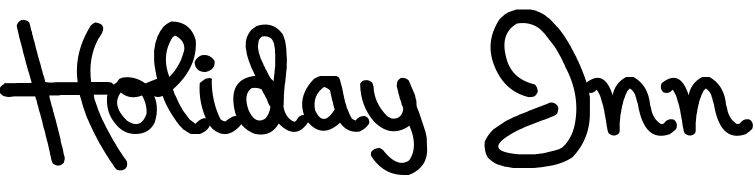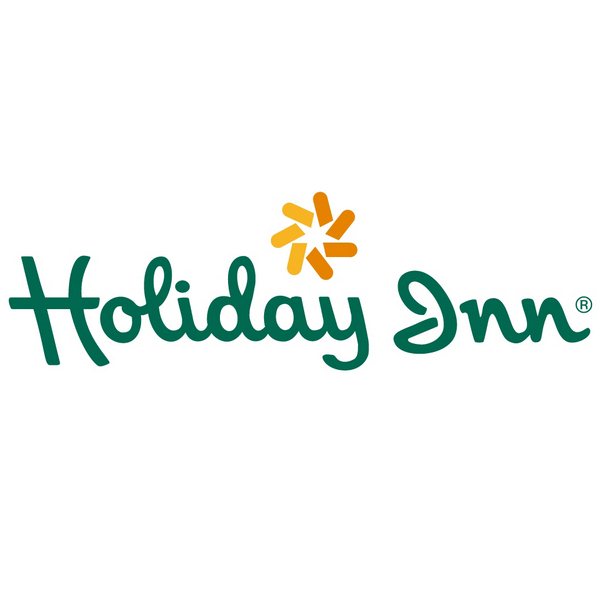
Holiday Inn Font
Fonts in UseHoliday Inn is a well-known hotel chain with a global presence. Headquartered in Denham, Buckinghamshire, UK, the brand has expanded to over 4,000 hotels in more than 100 countries, offering comfortable and affordable accommodations for business and leisure travelers.
Holiday Inn's current logo, introduced in 2007, features a stylized H on a green square with the brand name set in a custom italic typeface. The typeface appears to be custom-made, as no matching font can be found. The previous logo used a cursive lettering style similar to the "Holiday India" font, which is available for free download from the Fonts Used Section.